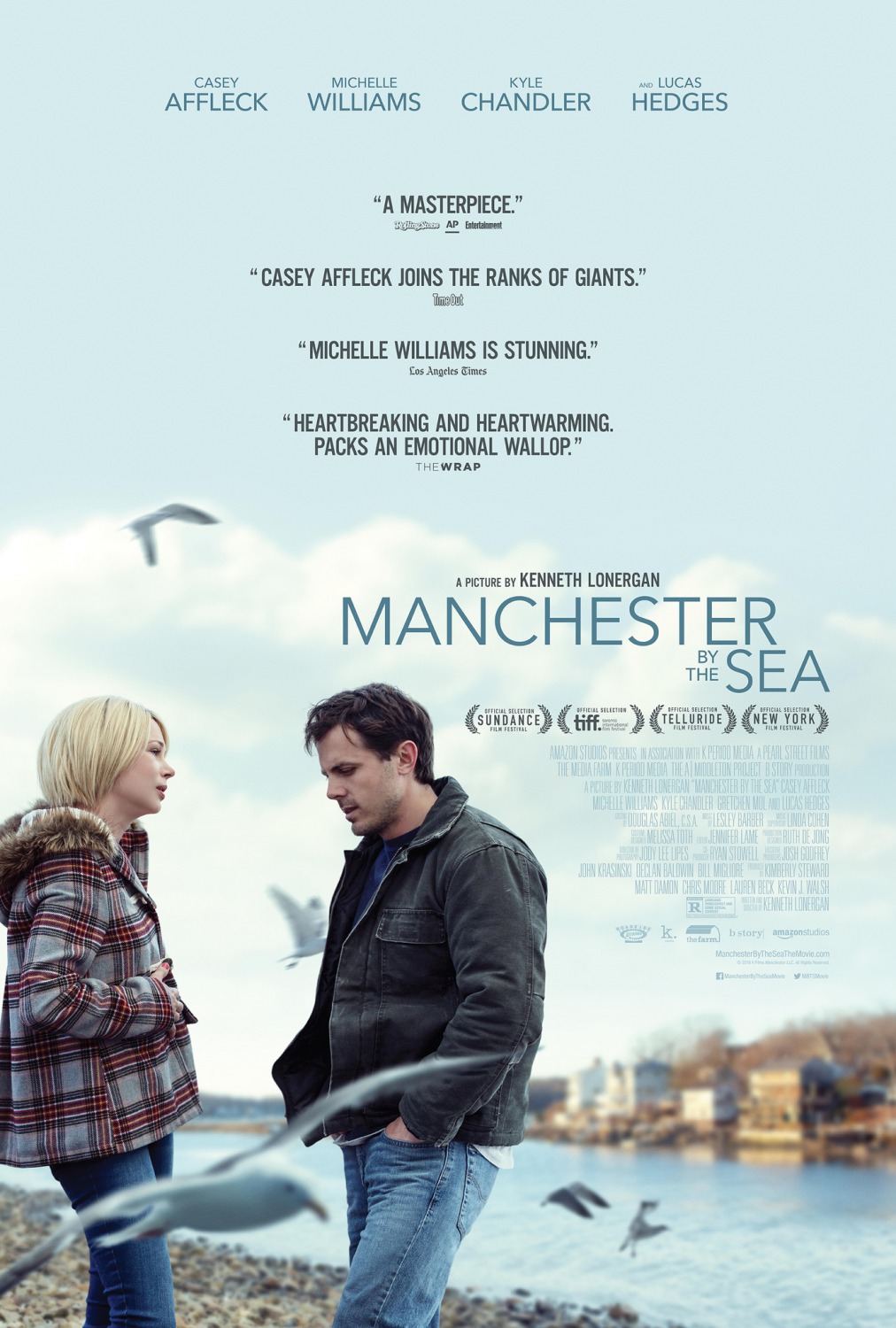
Manchester By The Sea Font
The title of the film on the poster is in the Avenir Light font. This font was created by Swiss designer Adrian Frutiger and is a geometric sans-serif inspired by Futura and Erbar typefaces.